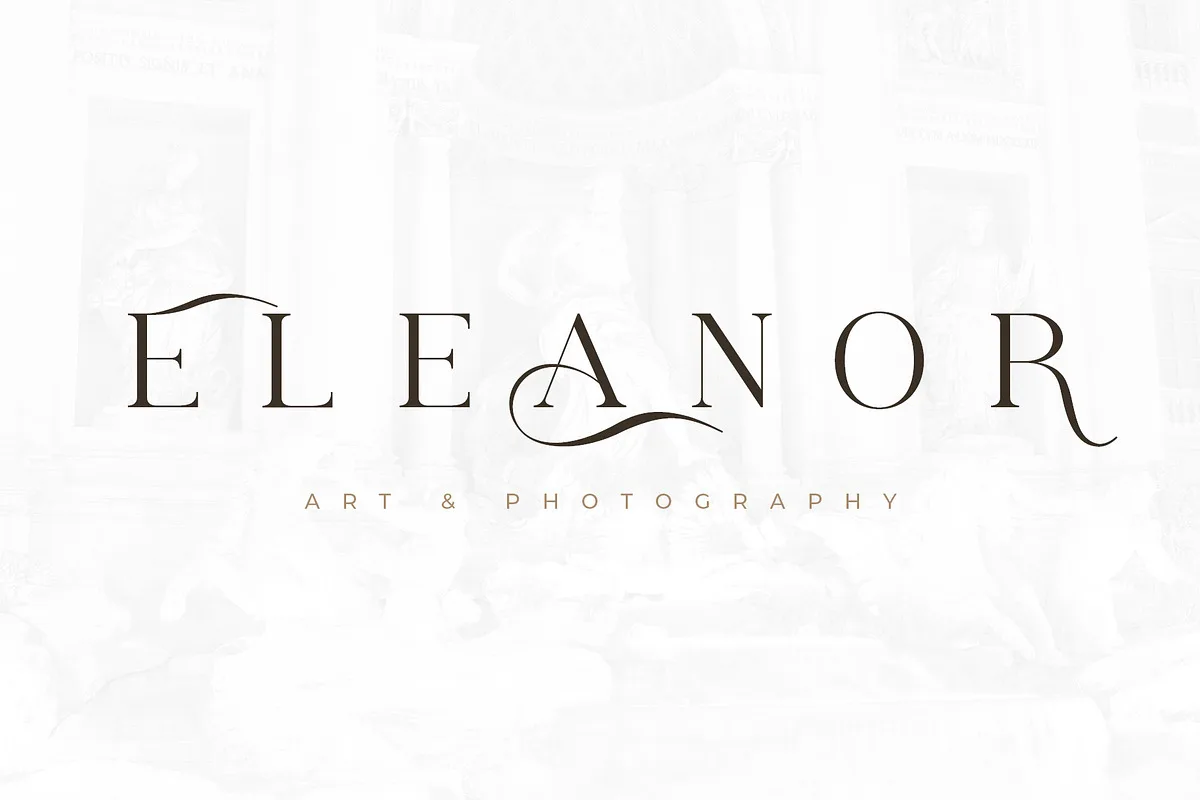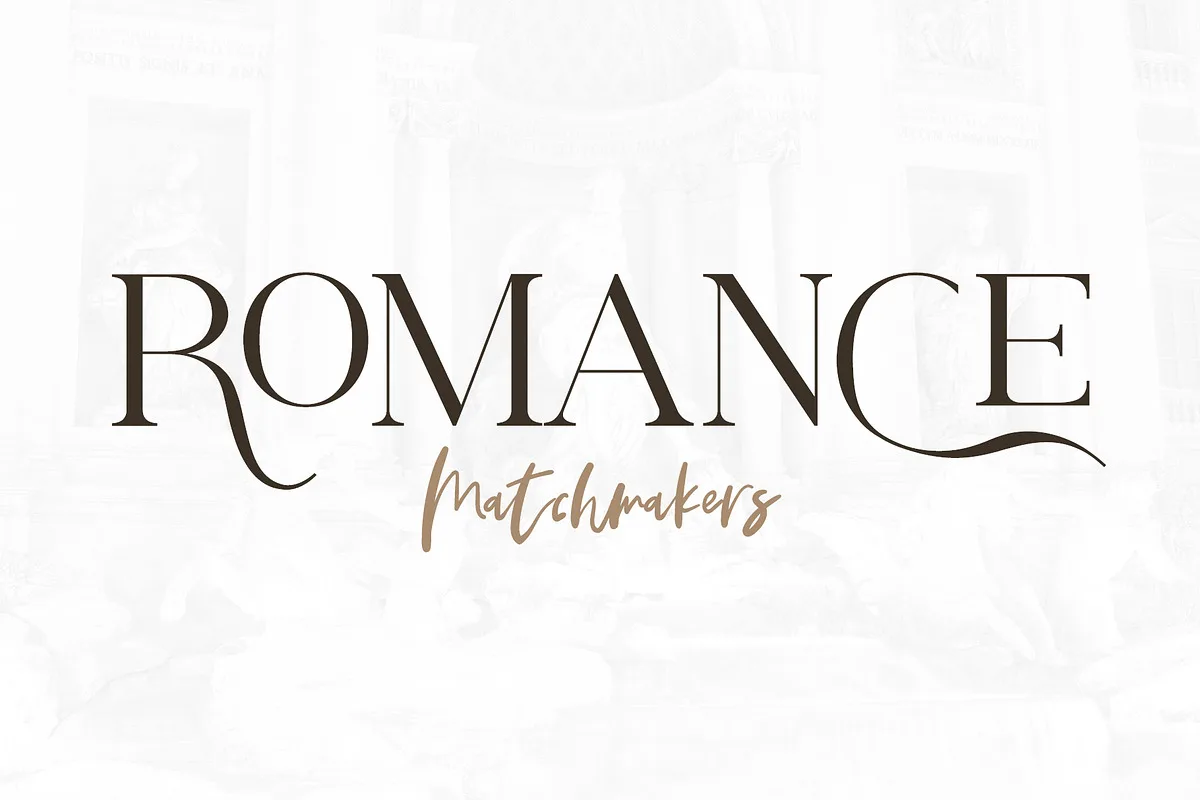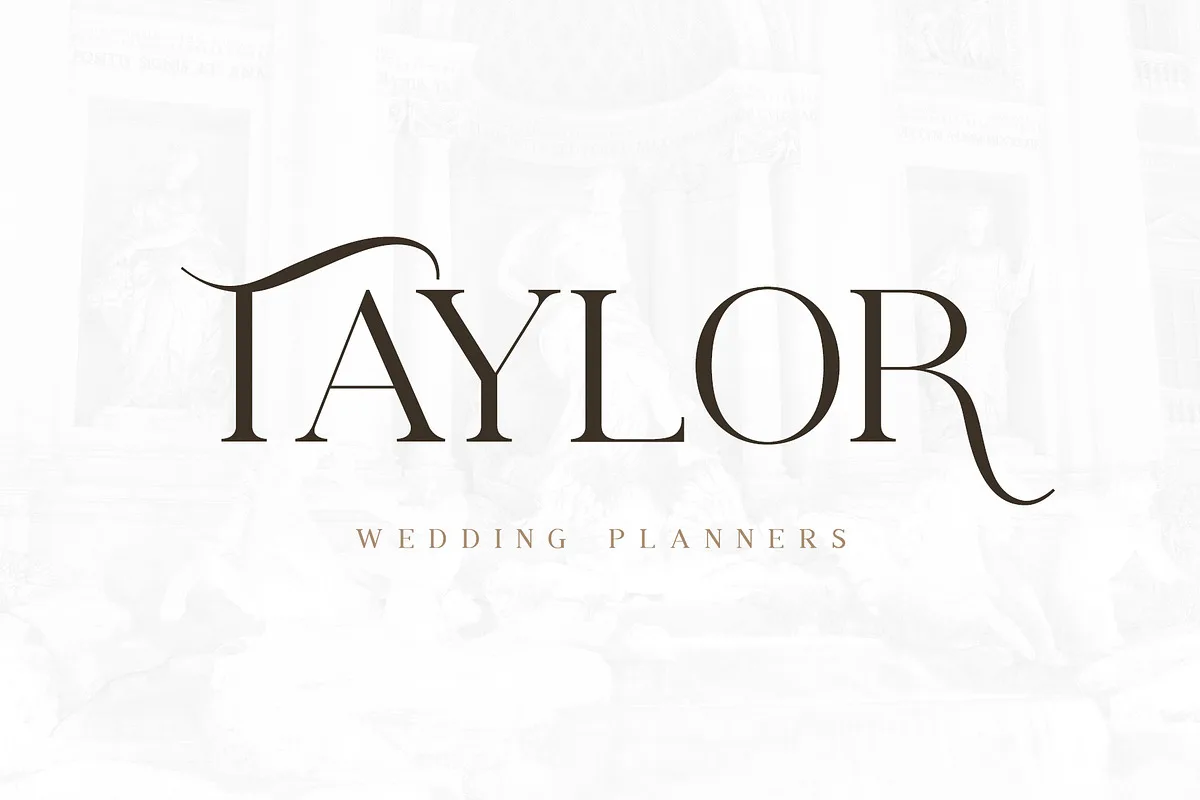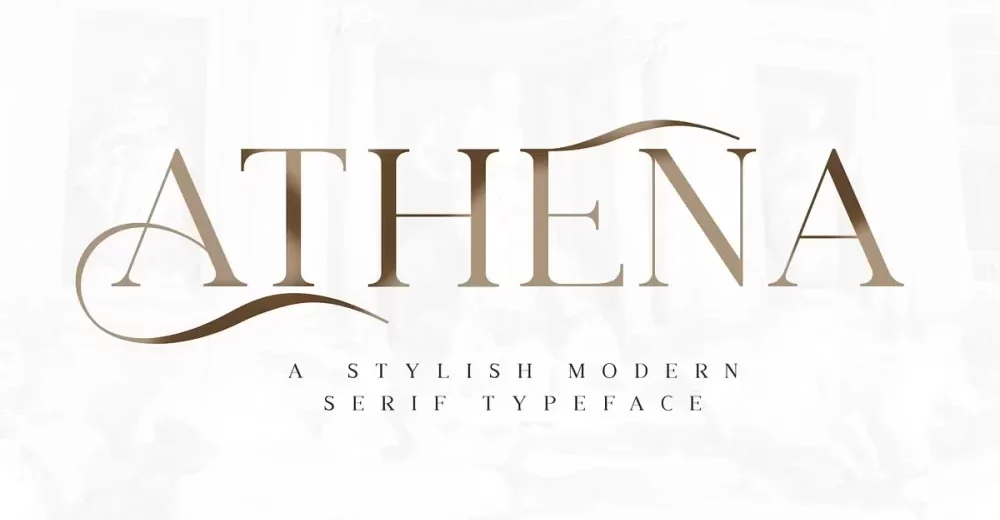
Athena is a new stylish serif typeface with a modern touch, combining regular and thin stroke widths together with elegant flourishes for a beautiful result. It is perfect for headlines and display text, it also has good readability at smaller sizes.
This all-caps font features optional swirls and flourishes, which can be added using either the traditional uppercase or lowercase versions of the letter. Flourishes can be added at the beginning, middle, or end of any word.